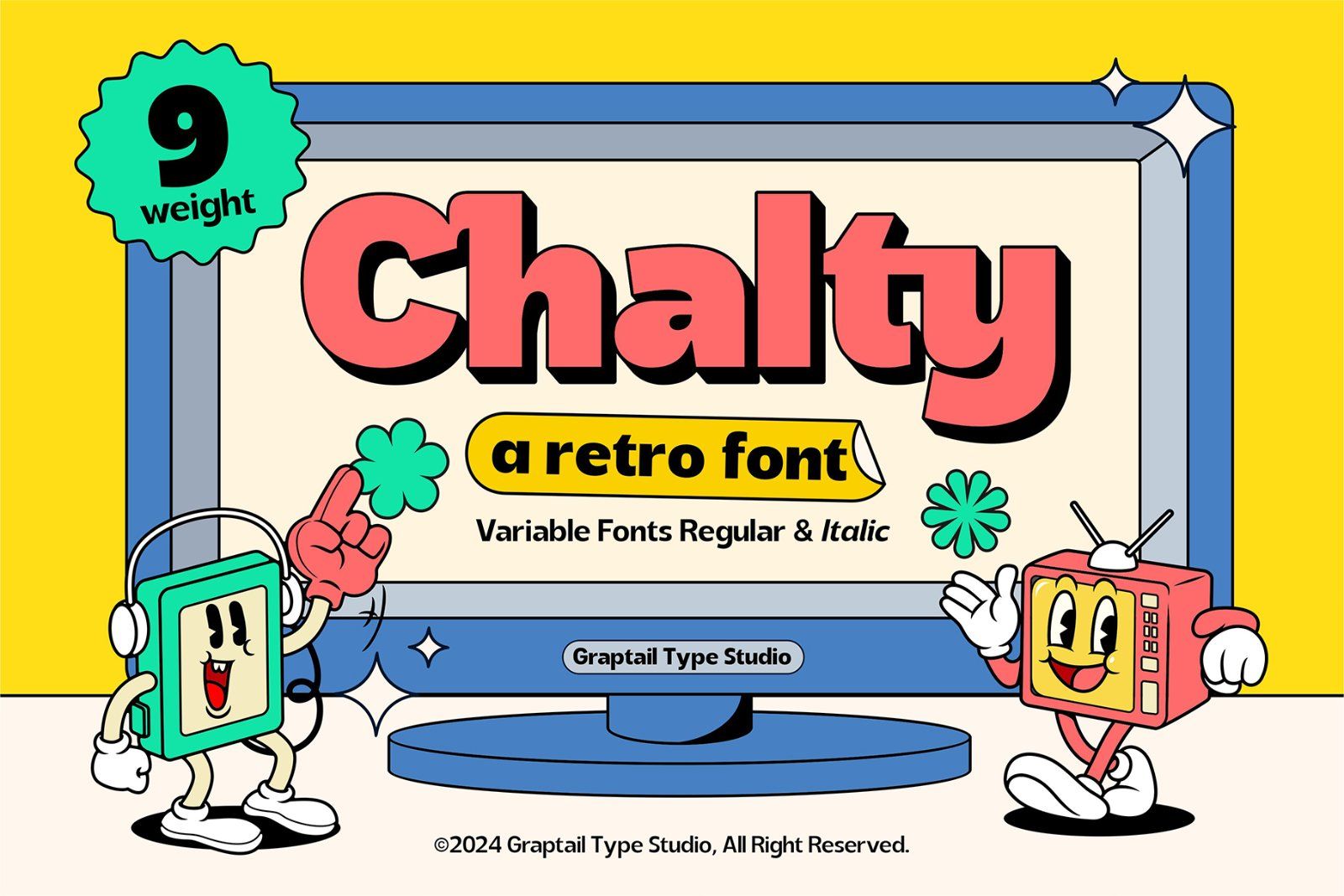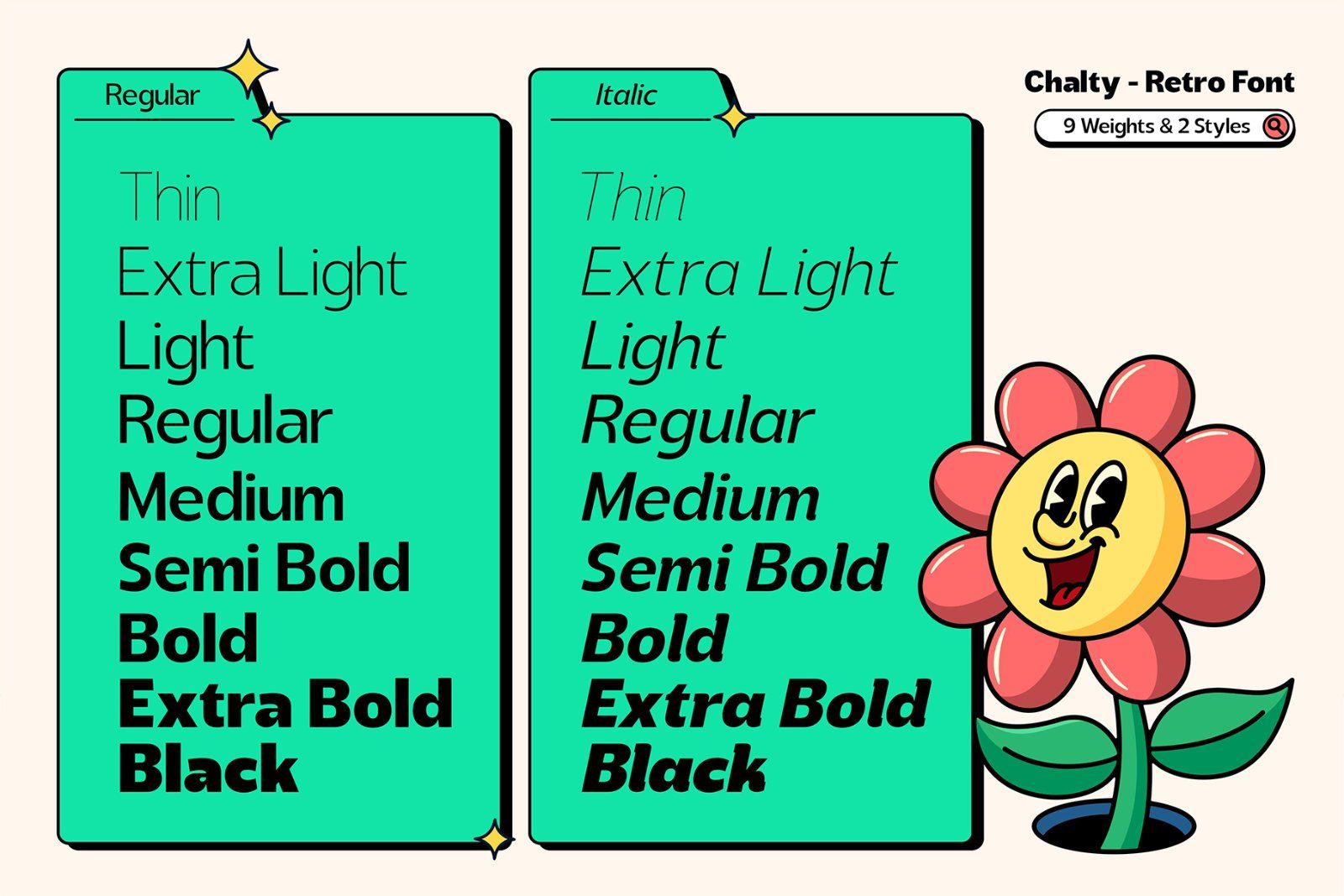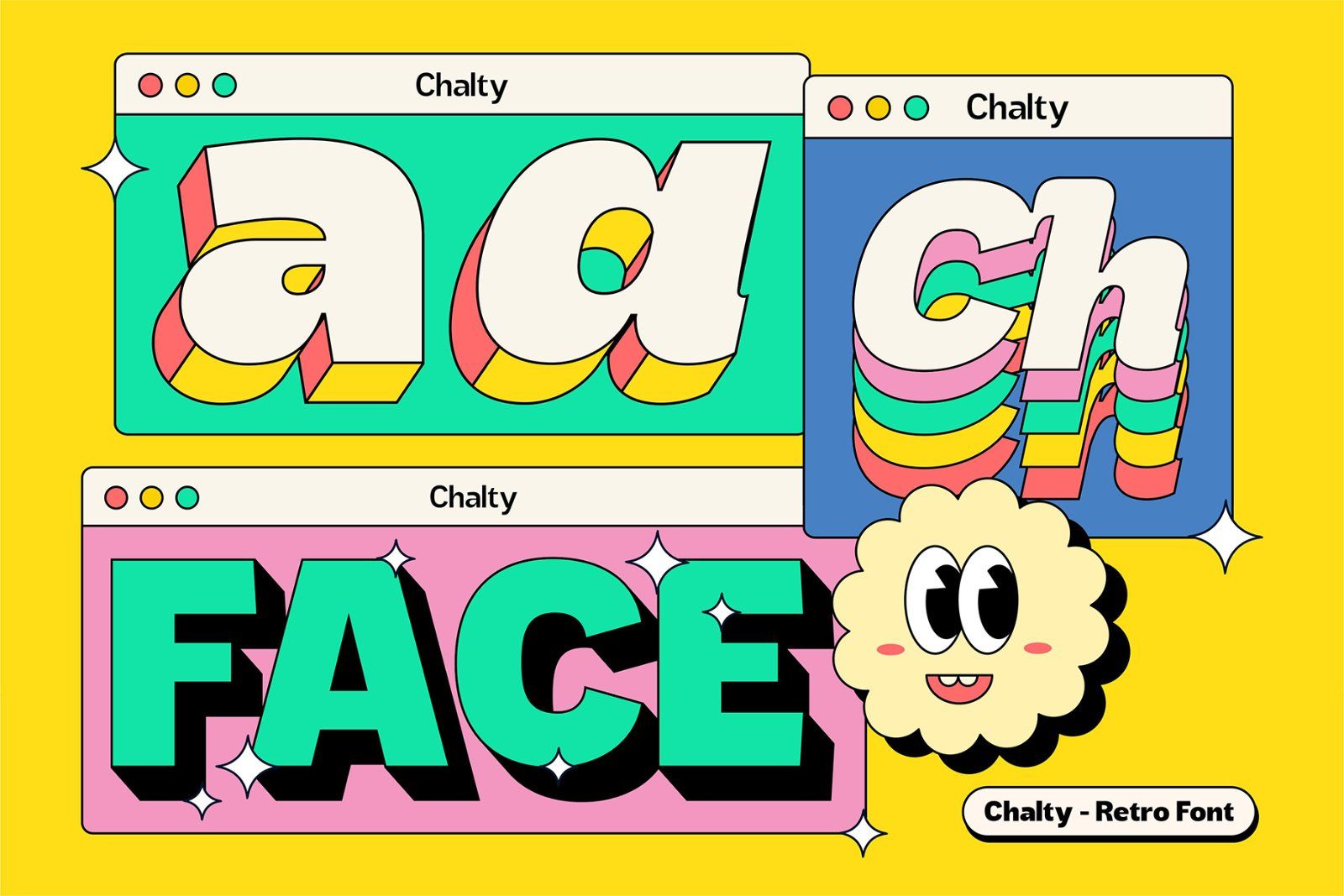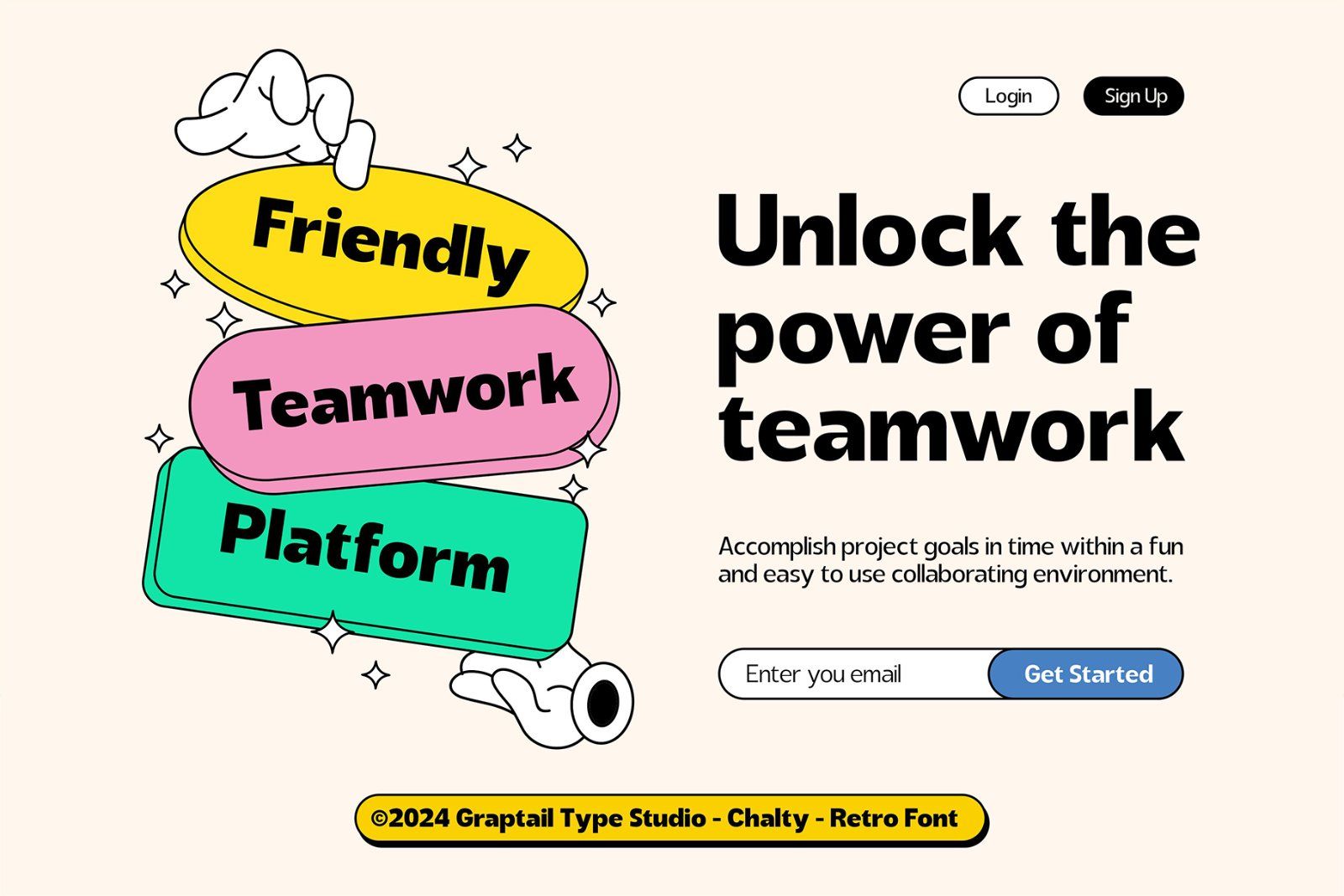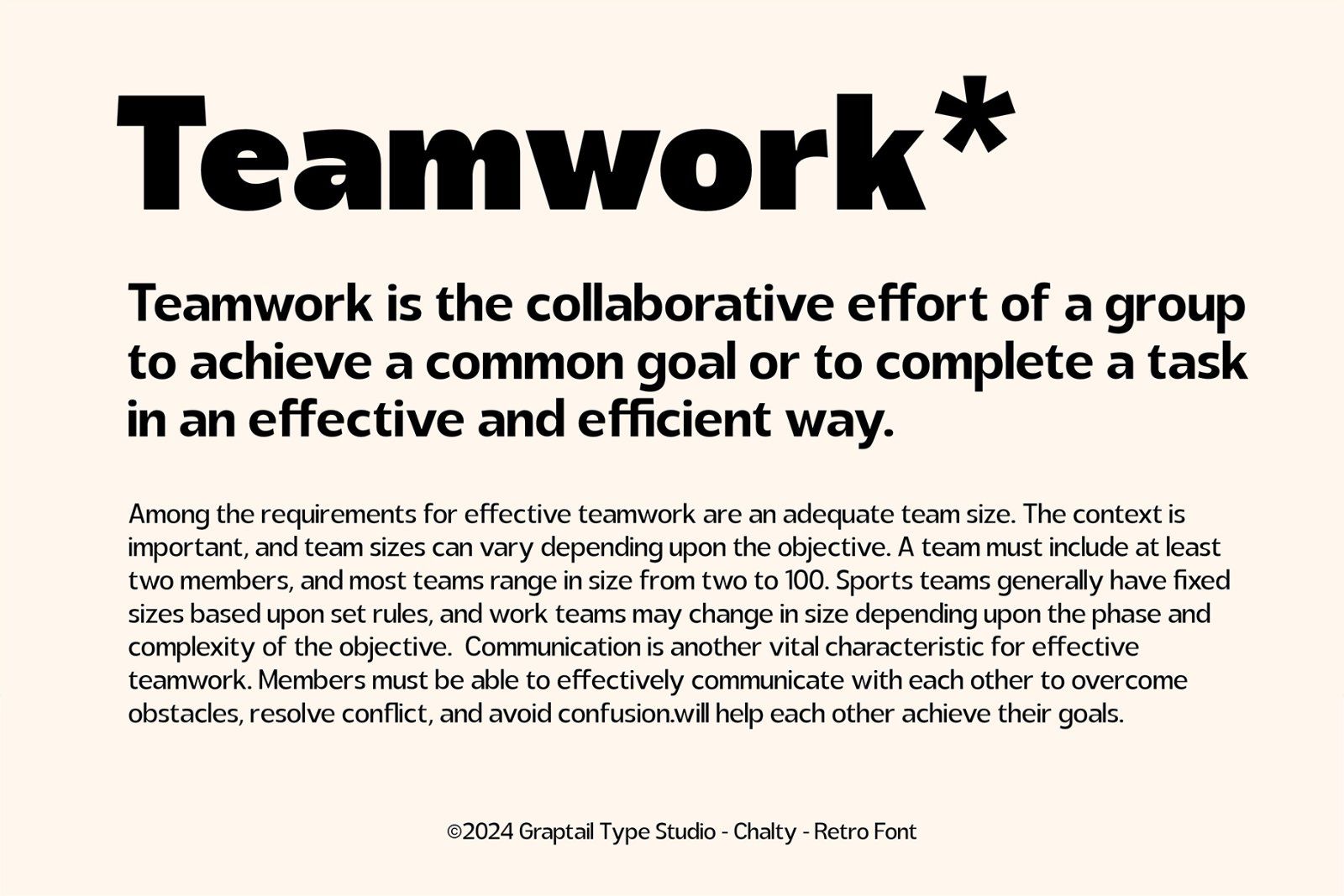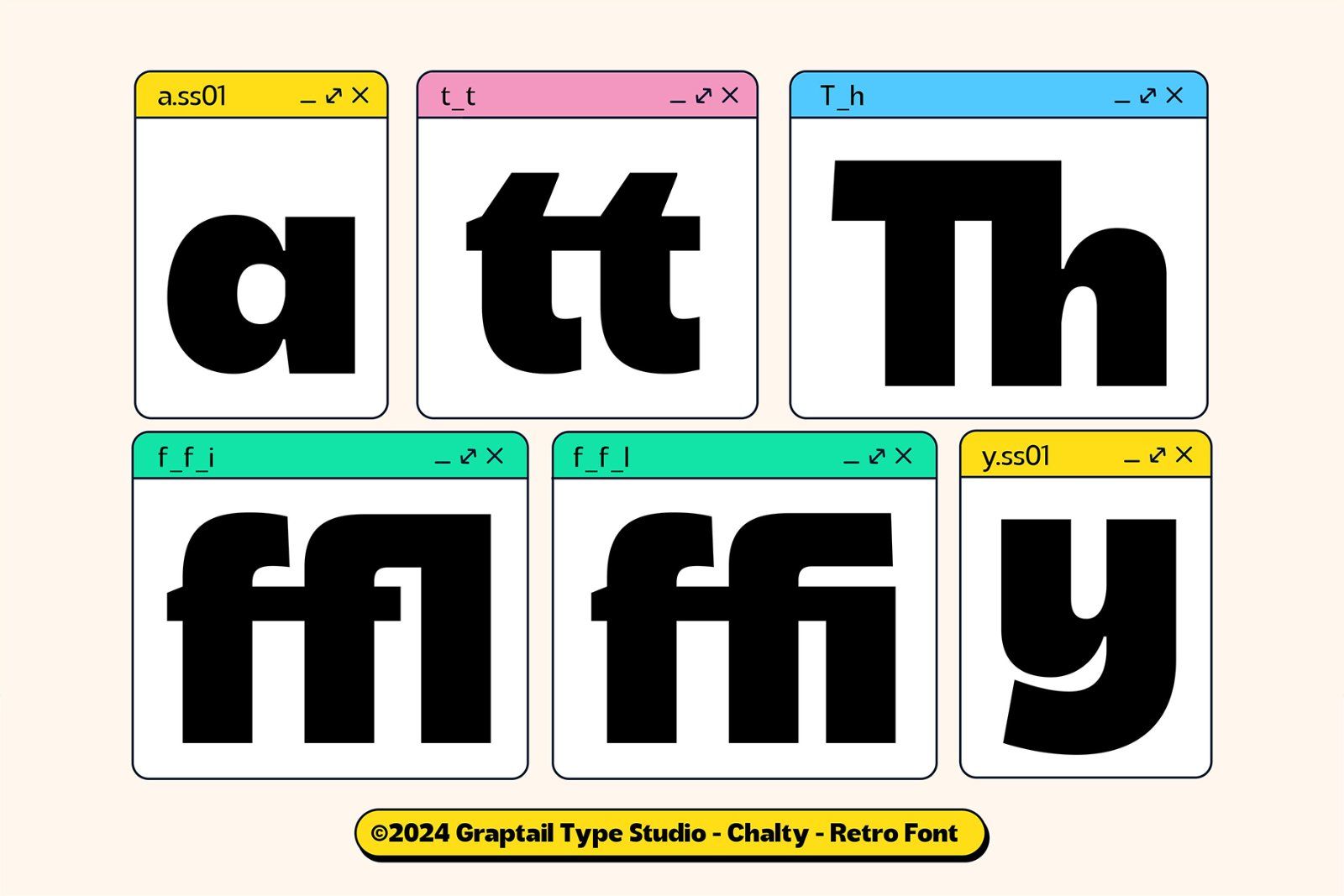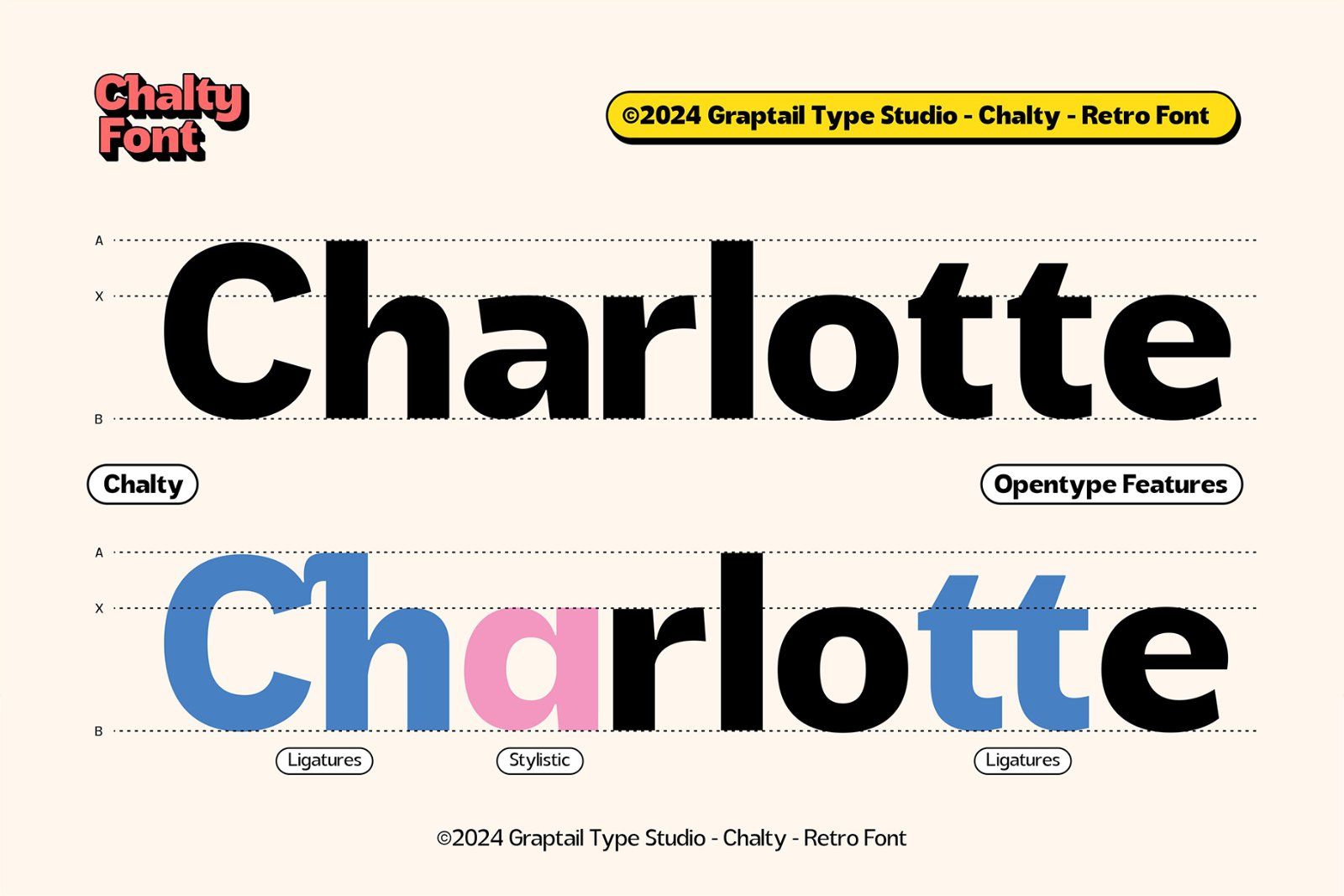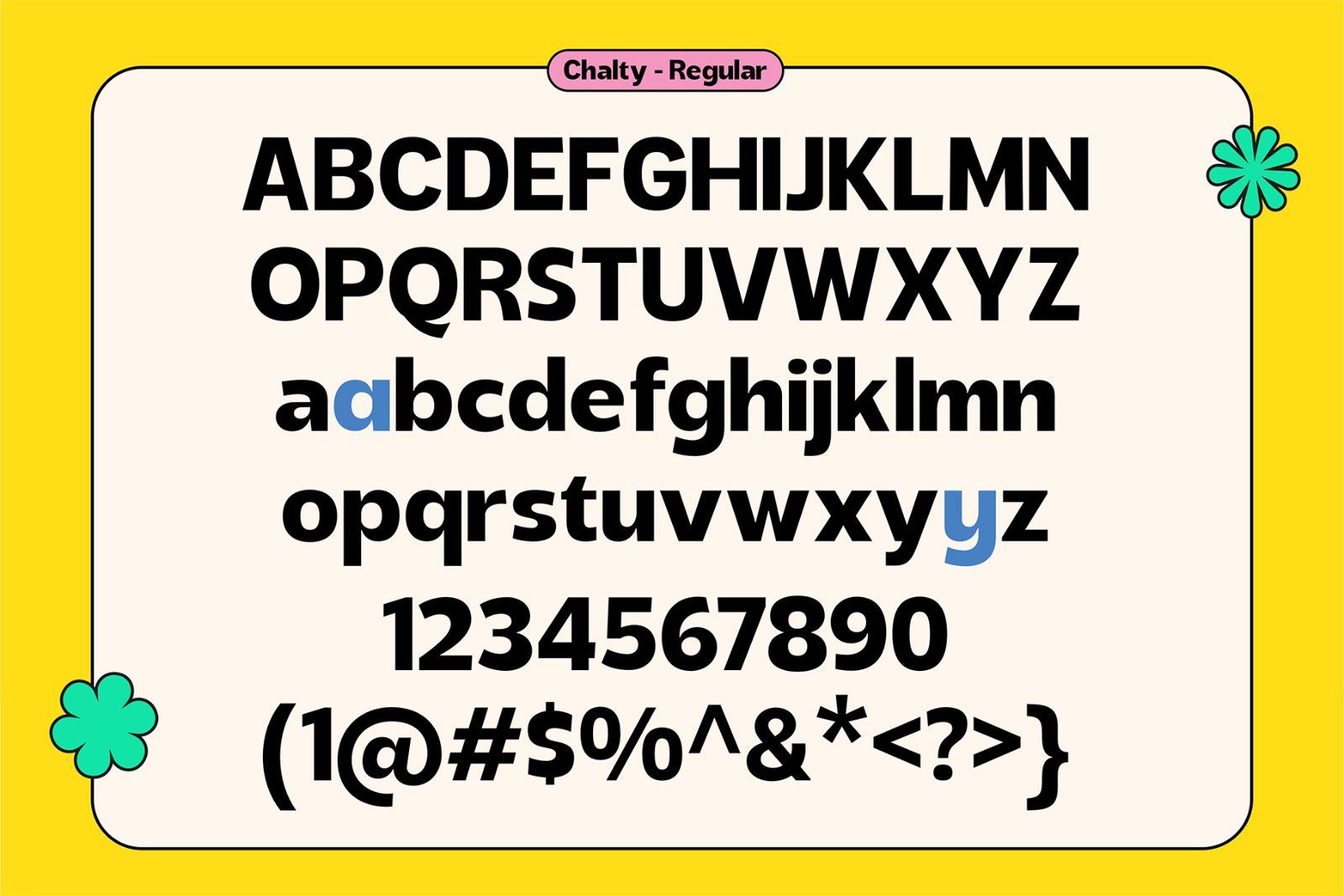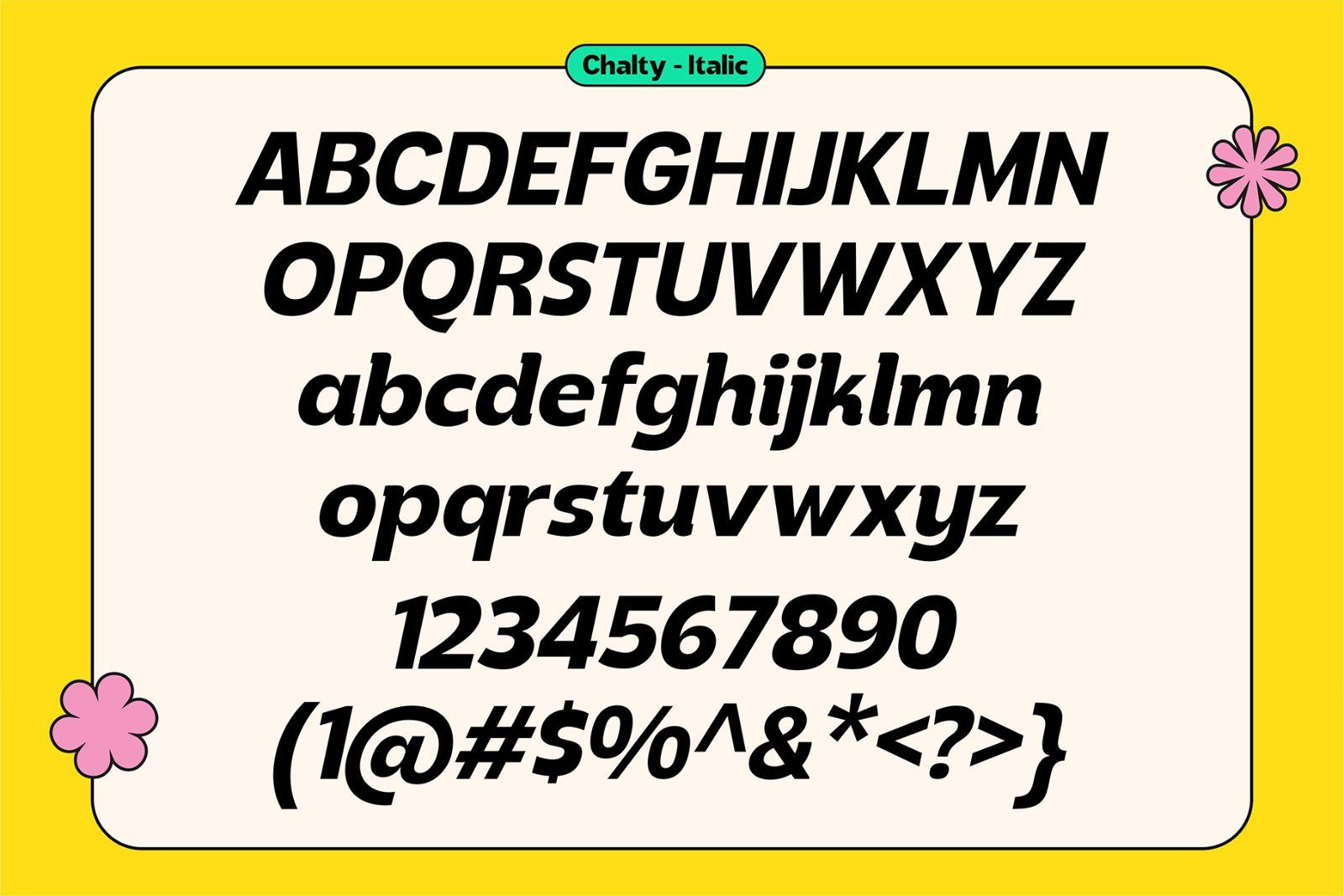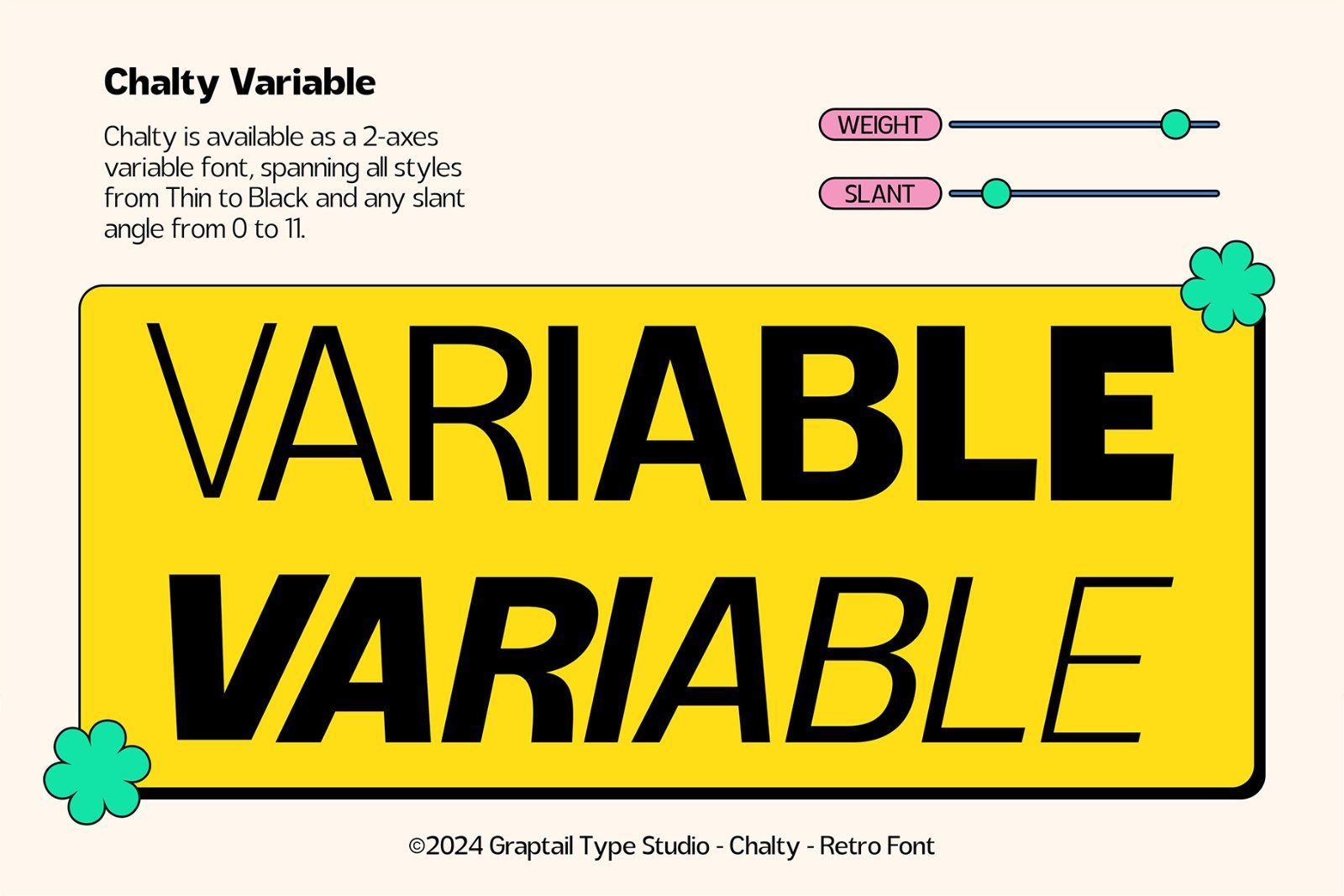
Introducing Chalty - Retro Font Family a captivating sans serif font family with a total of 18 carefully crafted variations designed to infuse a unique retro touch into your designs. This font seamlessly combines the elegance of modern sans serif typography with a nostalgic nod to the retro era, creating the perfect blend of past and present.
With a diverse set of 18 included fonts, Chalty Font offers maximum flexibility to meet all your design needs. Each font variant has been thoughtfully created to evoke distinctive impressions, ranging from bold expressions to subtle softness, suitable for various creative projects.